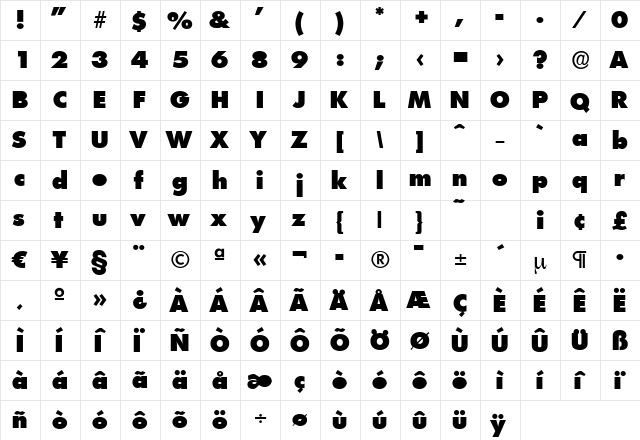
PeterBecker-Heavy Regular Font Preview
PeterBecker-Heavy Regular
PeterBecker-Heavy Regular Font Details
Design Context for PeterBecker-Heavy Typeface
PeterBecker-Heavy offers clean, dependable letterforms without strong stylistic allegiance, making it a practical choice for designers who need flexibility.